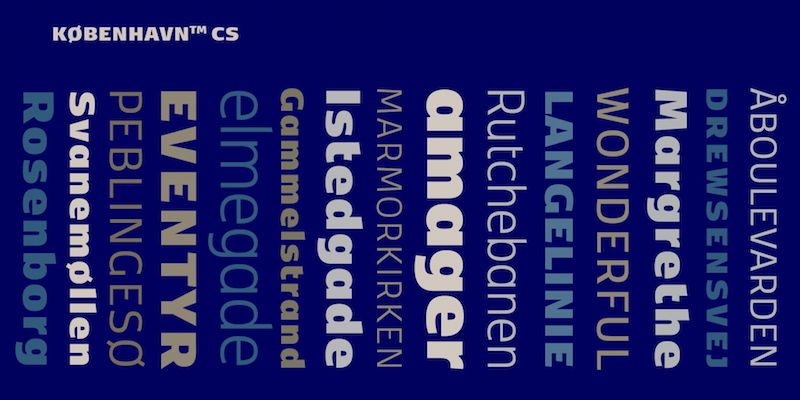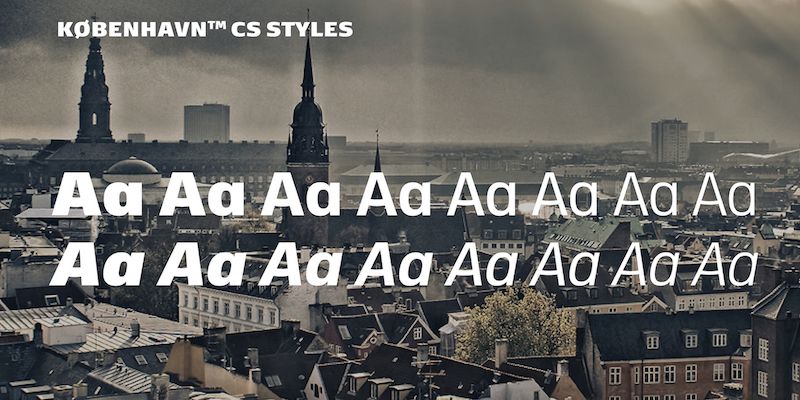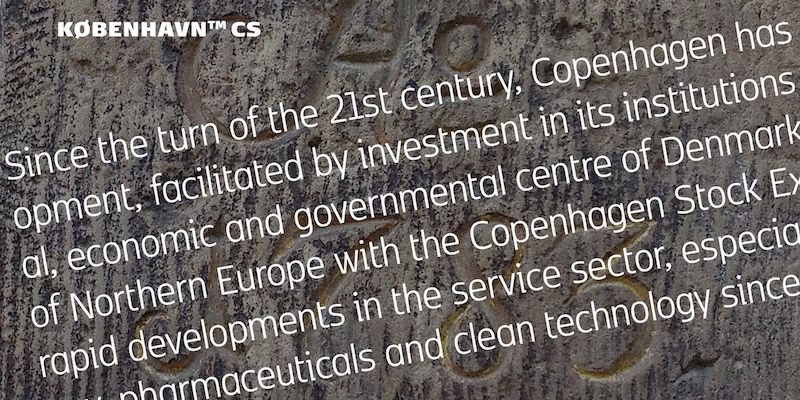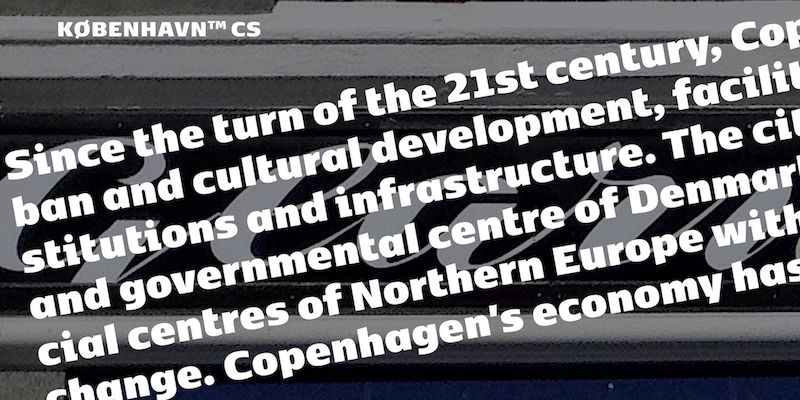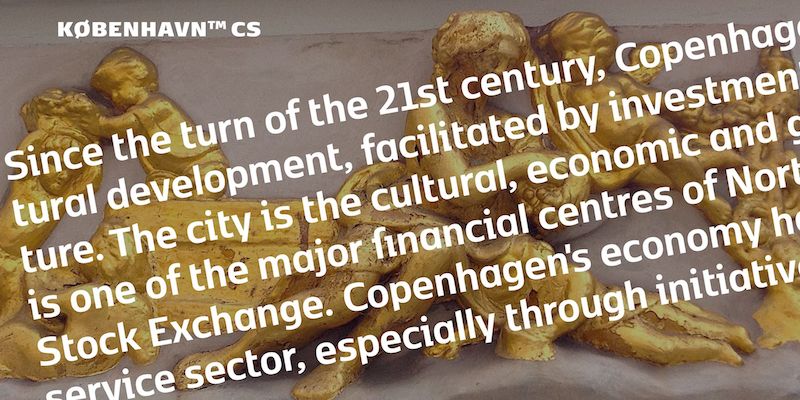
A part of the larger Kobenhavn family, CS stands for “Condensed Sans”.
The Danish capital Copenhagen has been in need of a typeface that unites the city’s many visual expressions.
The shape of the letters are inspired by the city’s culture and the visual environment and design in Denmark in the 20th century.
It is relatively low and wide as the city itself and with rounded corners that give it a warm visual mood. “You can find examples of the use of a typeface with the same purpose in other parts of the world, for example, to identify local areas or urban tourism materials. FP København is our take on that kind of typeface” the designers add.
Morten Rostgaard Olsen (born 1964) is a graphic designer, type architect, living and working in Copenhagen. After five years studying at The Danish School of Art and Design, he now runs a design studio where he supplies solutions for corporate design and typefaces. He’s also teaching and consulting. Among his clients at home and abroad is The Danish Ministry of Education in Copenhagen, the first user of his font FF Olsen.